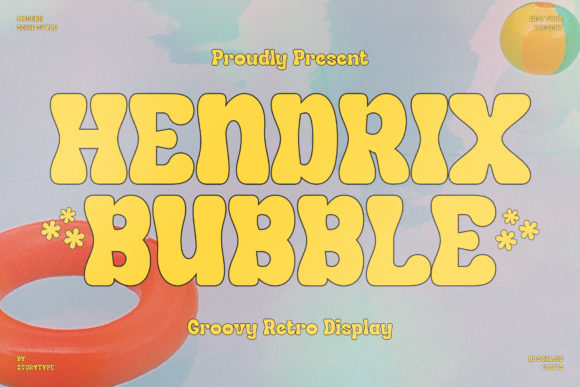
Prepare to be mesmerized by Hendrix Bubble Font, a typographic masterpiece that will leave an indelible mark on your creative projects. Immerse yourself in an enchanting world of fluid lines, graceful curves, and captivating characters that exude elegance and boldness like no other.
Hendrix Bubble Font is not just a font; it's an artistic expression that transcends the boundaries of ordinary typography. Its meticulously crafted design echoes the fluidity of a painter's brush, capturing the essence of handwritten beauty with an undeniable allure. Each letter, each stroke, each curve is a testament to the artistry that lies within this font.
Allow Hendrix Bubble Font to dance across your designs, whether it's a logo that demands attention, a book or movie title that oozes sophistication, a fashion brand that radiates elegance, or a magazine layout that captivates readers from the very first glance. This font is the ultimate chameleon, effortlessly adapting to a myriad of creative endeavors, adding a touch of magic to every project it graces.
With Hendrix Bubble Font, you have the power to evoke emotions, convey messages, and captivate audiences like never before. Its versatile nature allows you to weave tales of love, adventure, mystery, and joy, all through the expressive strokes of this extraordinary font.
Step into the spotlight with Hendrix Bubble Font and let your creativity shine. Let your words dance, your designs flourish, and your projects take on a life of their own. Embrace the beauty of bespoke typography and experience the transformative power of Hendrix Bubble Font today.